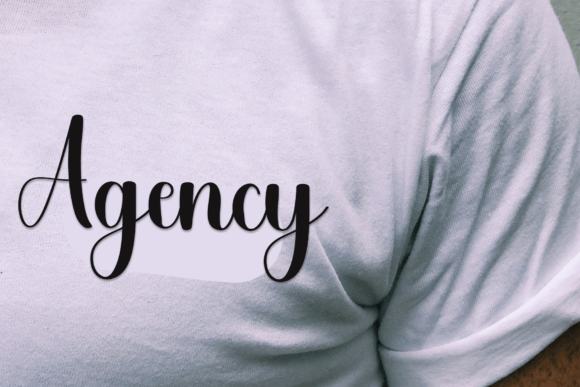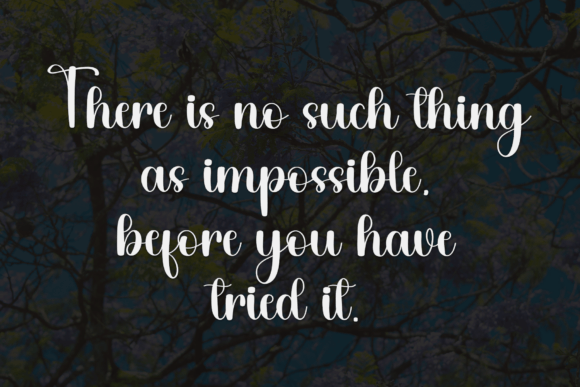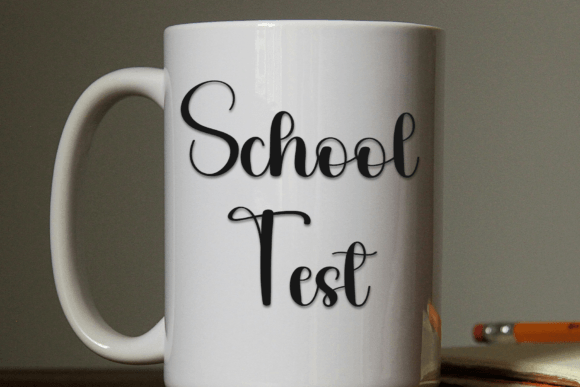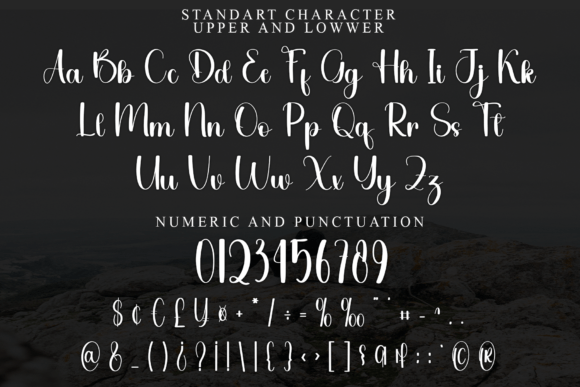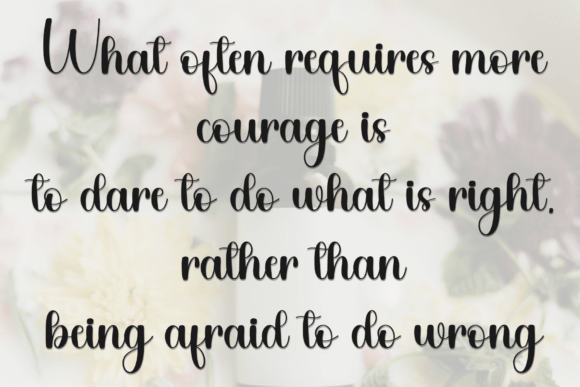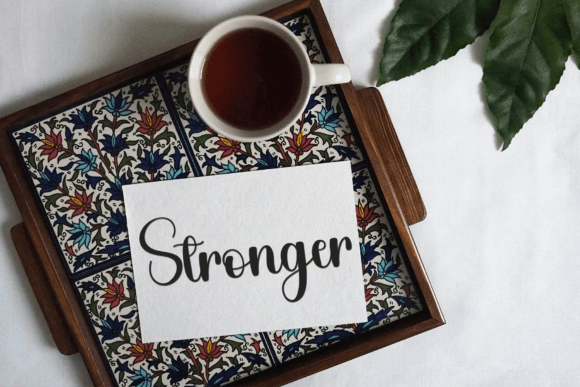
The Perfect Font for Creative Projects: A Deep Dive into Assume Font
I’ll never forget the time I was working on a personal project, a handmade invitation for a friend’s wedding, and I just couldn’t find the right font. I wanted something that exuded warmth, friendliness, and a touch of playfulness. That’s when I stumbled upon Assume Font, and it instantly became my go-to. In this article, I’ll share my experience with Assume Font, its features, and how to make the most of it in various design platforms.
An Honest Review of Assume Font
- ✨ The casual and creative vibe that Assume Font brings to the table is unmatched. Its round, playful strokes create a relaxed and approachable feel that’s perfect for personal projects, invitations, and social media graphics.
- ✅ The font’s charming, hand-drawn aesthetic adds a fun and unique touch to any design, making it stand out from more traditional fonts.
⚠️ While Assume Font is incredibly versatile, it’s not suitable for very formal or professional projects. Its playful nature might not be the best fit for corporate branding or official documents.
🤔 Some users might find that the font’s casual feel doesn’t work well with very long blocks of text. It’s best used for headlines, titles, or short paragraphs.
The Backstory of Assume Font
Assume Font was designed with the intention of creating a friendly, approachable font that would bring a touch of warmth to any design. The designer, inspired by the imperfections of hand-drawn lettering, aimed to create a font that felt like it was written by a friend. With its playful strokes and charming aesthetic, Assume Font has become a go-to for creatives looking to add a personal touch to their projects.
- Q: What type of projects is Assume Font best suited for?
- A: Assume Font is perfect for personal projects, invitations, social media graphics, and creative campaigns. It’s not suitable for very formal or professional projects.
- Q: Can I use Assume Font for personal projects, like crafting or DIY tutorials?
- A: Absolutely! Assume Font is perfect for personal projects, like crafting or DIY tutorials. Its playful aesthetic adds a fun and unique touch to any creative project.